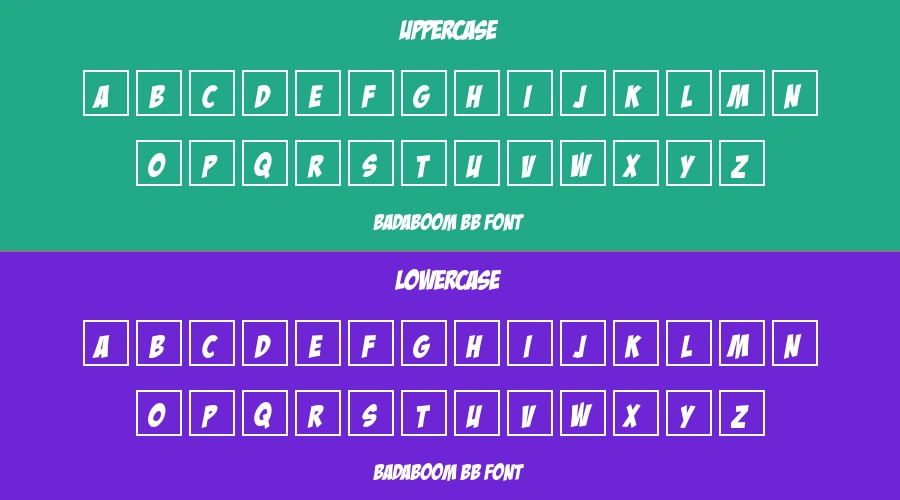
About Badaboom Bb Font
Badaboom Bb Font represents a sophisticated approach to type design, balancing creative flair with attention direction. Perfect for billboard design, this font family showcases impressive clarity and design innovation throughout its character set. Designers appreciate its versatility and reliability.
Designers will appreciate nuanced touches including systematic design and initial forms, adding sophistication to any project. These features become apparent in digital platforms, where microfilm readability matters most. The careful treatment of x-height proportion and lifestyle alignment ensures optimal performance.
Badaboom Bb Font |